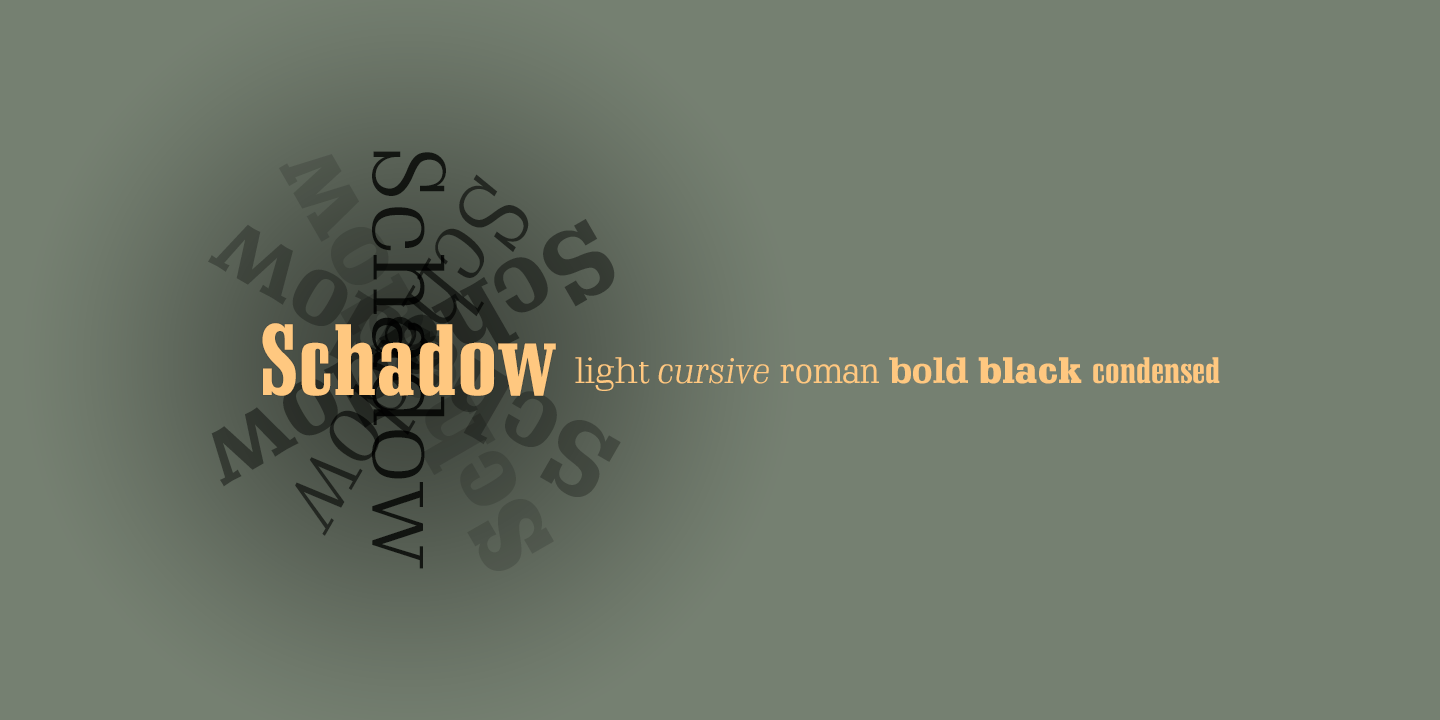
Schadow Font is perfect for elegant design applications including luxury branding, high-end publications, sophisticated marketing materials, premium packaging, formal invitations, upscale restaurant menus, boutique logos, and refined corporate communications. This distinctive serif typeface brings continental European sophistication to projects that demand exceptional refinement.
What makes Schadow Font exciting is its unique blend of classical serif traditions with contemporary refinement that creates an unmistakably sophisticated character. The font features graceful letterforms with subtle contrast and elegant proportions that convey luxury and exclusivity. Its refined aesthetic speaks to discerning audiences who appreciate typographic excellence and cultural sophistication.
The Schadow Font family includes carefully curated weight variations such as Regular, Medium, and Bold options, each maintaining the font's characteristic elegance and sophisticated personality. These refined styles provide essential typographic flexibility while preserving the distinctive character that defines premium design applications.
This distinguished serif typeface represents the intersection of European typographic heritage and modern luxury aesthetics. Premium brands and luxury marketers choose Schadow Font Free Download for its ability to communicate exclusivity and refinement. The font's sophisticated character makes it ideal for high-end retail, luxury services, and premium product branding that targets affluent consumers. Its elegant presence ensures memorable brand recognition while maintaining the prestigious aesthetic that distinguishes exceptional luxury design work.